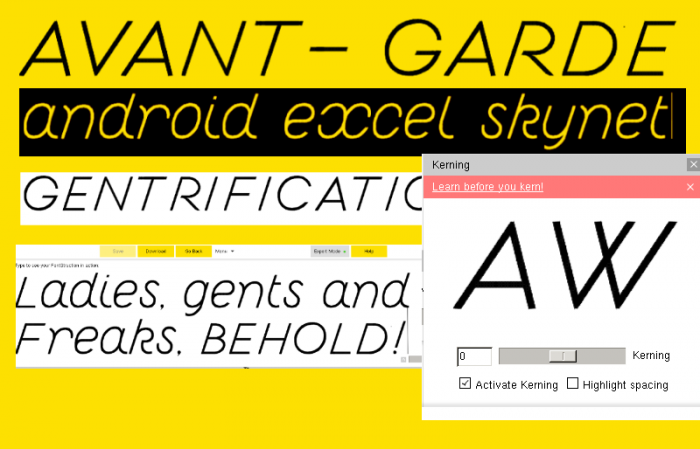
God, this had fuc*ing terrible spacing before, and now It just looks glorious.
Italic font that resembles handwriting with felt tip pen, more or less. Your meticulous work has payed off: the text looks beautiful, easy to read. The oval shapes are elegant. I think, the "x" need a bit of pruning, and some other glyphs need a bit of refinement. In the randomly selected word "black" there are five wonderful letters in perfect harmony. 10/10
Thanks man!  I'm gonna test this with a narrower x and a more conventional v+w, just for reading purposes.
@Icelar: This is rather aesthetically pleasing, but I agree with Frodo7 that some of the glyphs could use some refinement.  At present, the lowercase X, in particular is much too wide, and its "mirrored C" look kills whatever flow this font has goint into it.
Still, I really like how Hipster catches the eye.  It's already on my favorites list.  Thumbs up overall.
Congratulations! FontStruct Staff have deemed your FontStruction worthy of special mention. “Hipster” is now a Top Pick.
So beautiful, a smooth look with a lot of individuality.
The first kerned professional-looking sans serif FontStruction(?) Very pleasing to see!
Note: Pay attention to those broken glyphs, maybe a glitch...
This is a great design, look very good and smooth
The dot on i and j look a bit lean compare to the stem, but it's a small détail, this font is remarkable 10
The new x is good, and the z has got some pizzazz.
Amazing lines and curves. Congratulations for the TP.